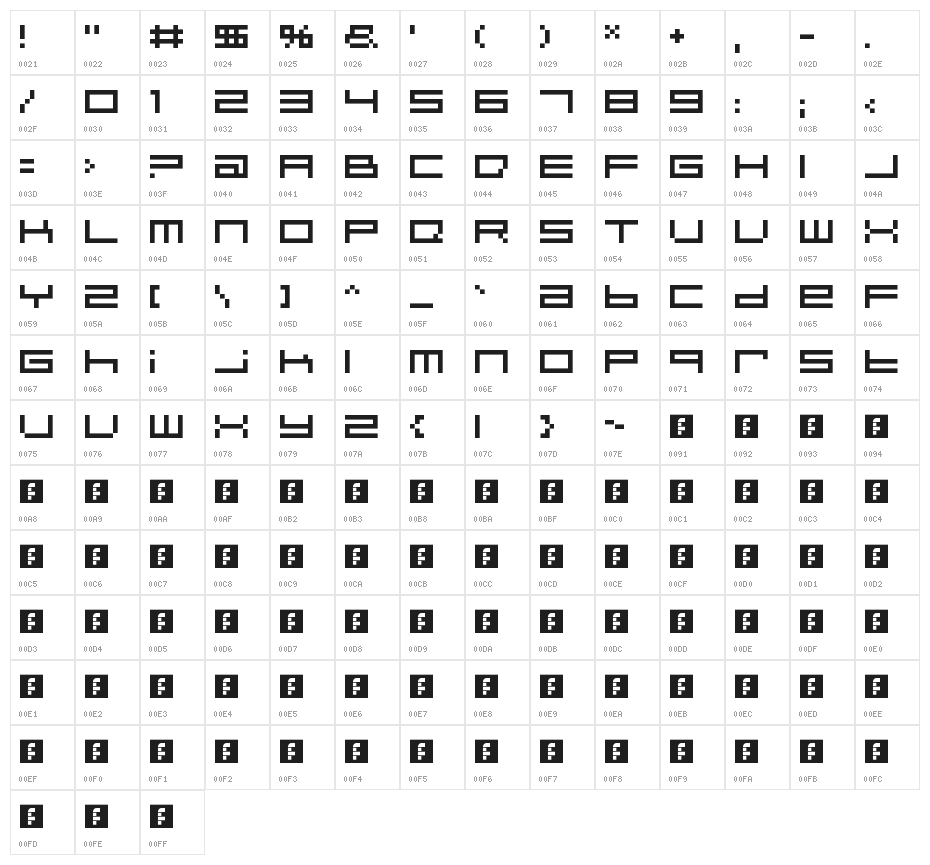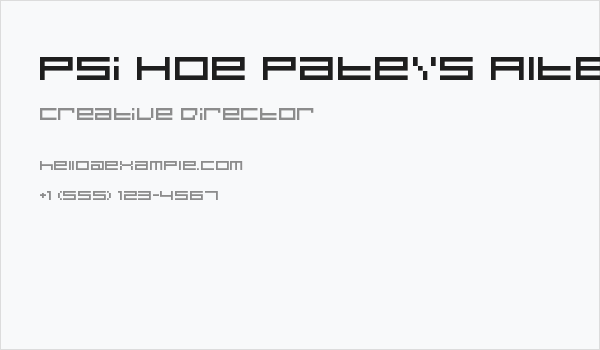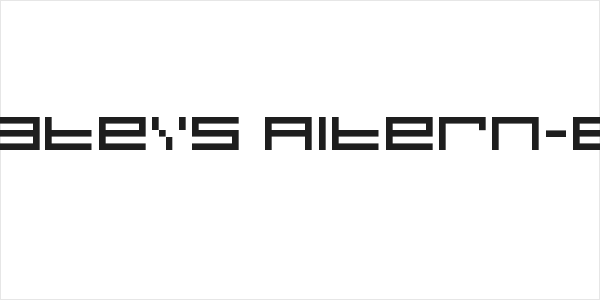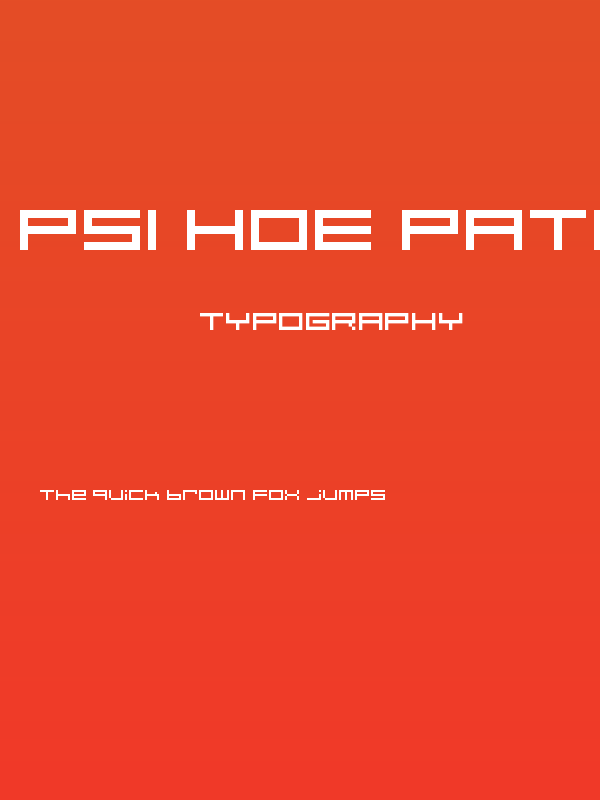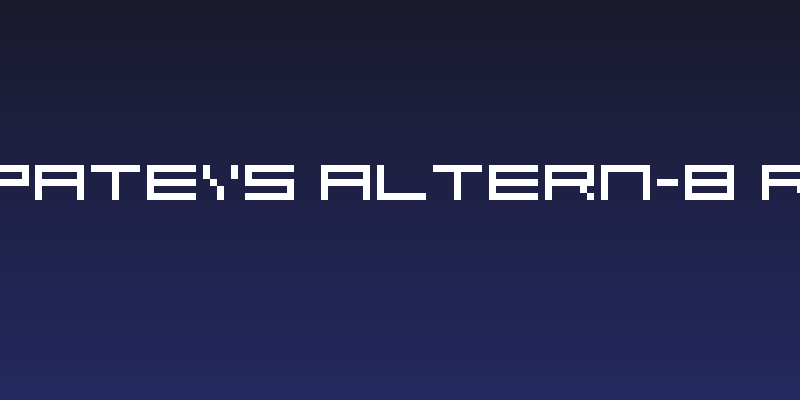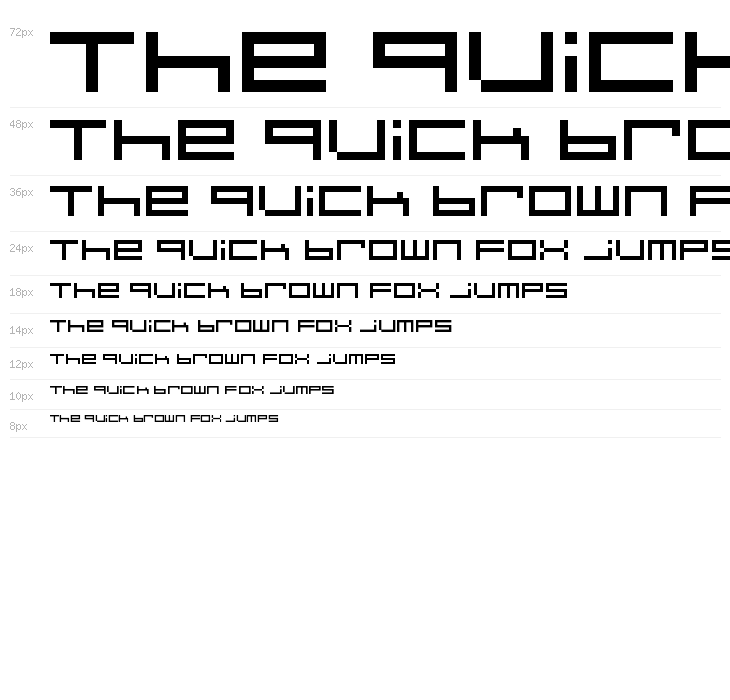
Psi Hoe Pate's Altern-8 Regular Font
Psi Hoe Pate's Altern-8 Regular Description
This font features a geometric, blocky design with a futuristic and digital aesthetic. Each character is composed of straight lines and right angles, giving it a pixelated appearance reminiscent of early computer graphics. The uniformity in line thickness across all characters contributes to a cohesive and structured look. The uppercase and lowercase letters maintain a consistent height, enhancing readability while preserving the unique style. Numbers and special characters follow the same design principles, ensuring a seamless integration with the alphabet. This font is ideal for projects that require a modern, tech-inspired feel.
| Use Case | Headlines, Logos, Digital Interfaces |
| Proposed Projects | Ideal for tech-themed designs, digital art, video game interfaces, and modern branding. |